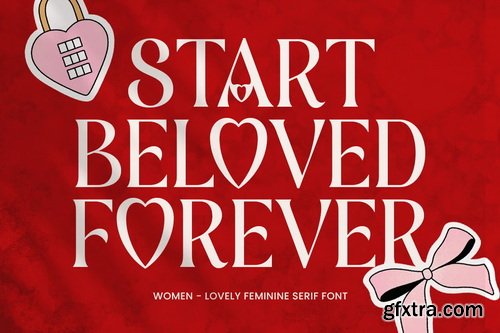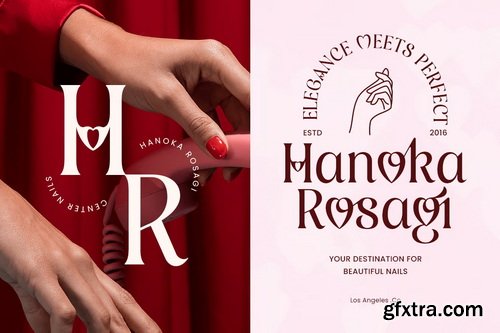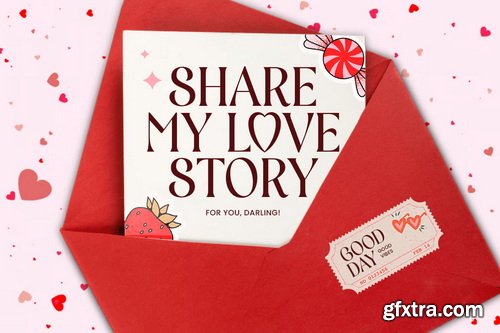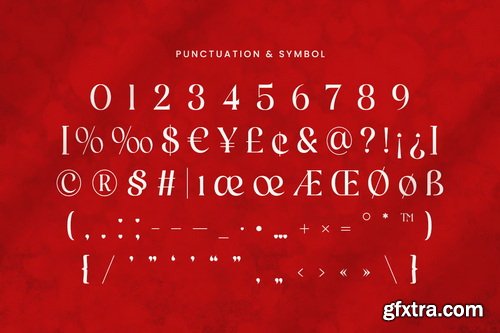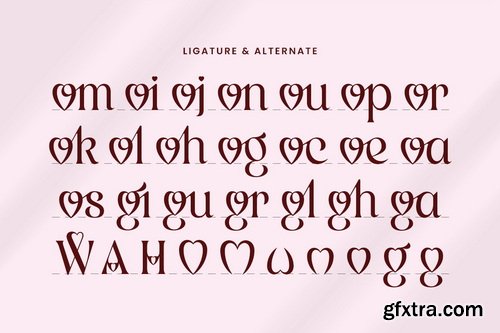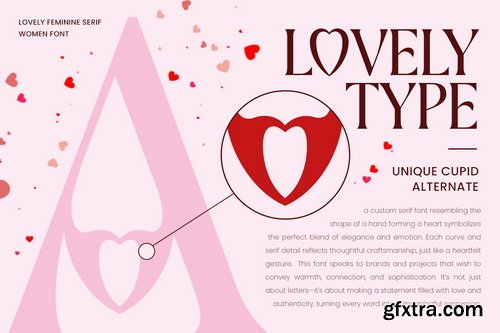
Women Lovely Feminine Serif Font
Women is a lovely feminine serif font that embodies elegance, sophistication, and empowerment. Designed with graceful curves and refined details, this font is perfect for projects that celebrate femininity, confidence, and timeless beauty. Ideal for luxury branding, fashion editorials, beauty packaging, wedding invitations, and inspirational quotes, Women delivers a chic and stylish aesthetic. Whether used for bold headlines, delicate branding, or elegant social media graphics, this serif font brings a touch of class and modernity to your designs. Celebrate International Women's Day, female-led brands, and creative empowerment with a font that reflects both delicacy and strength.